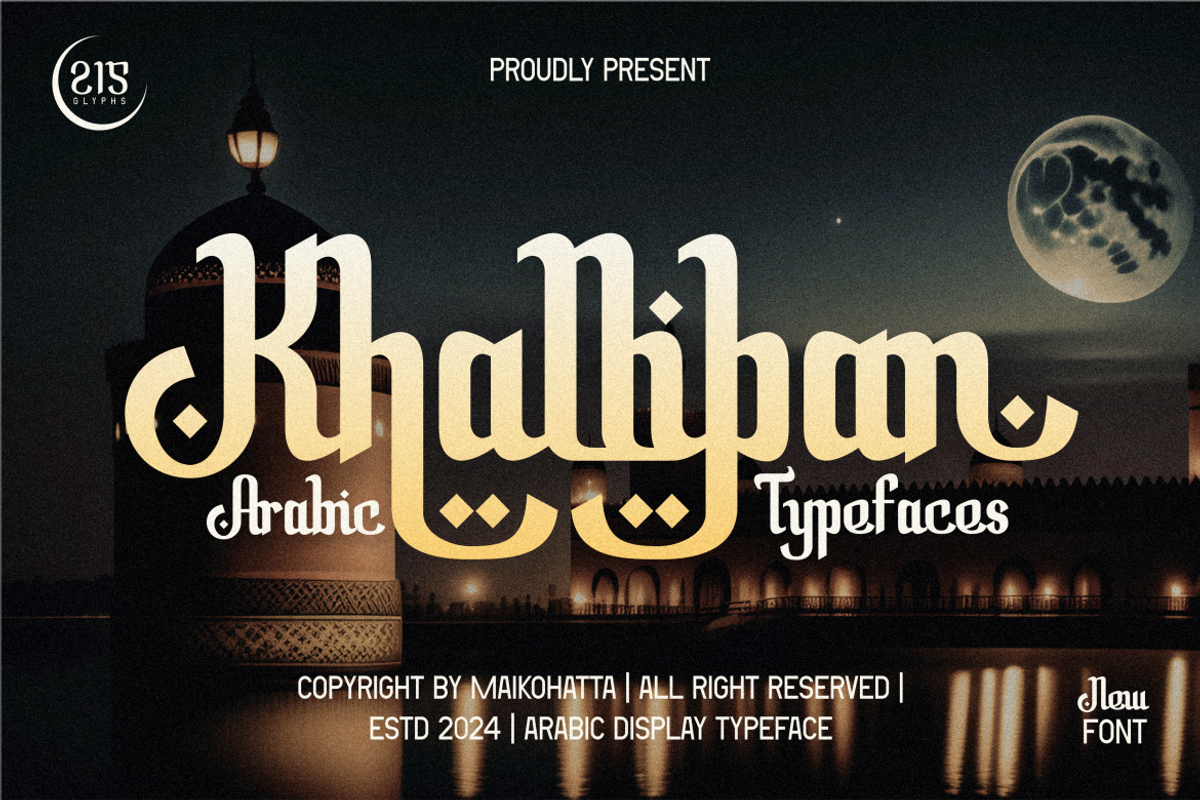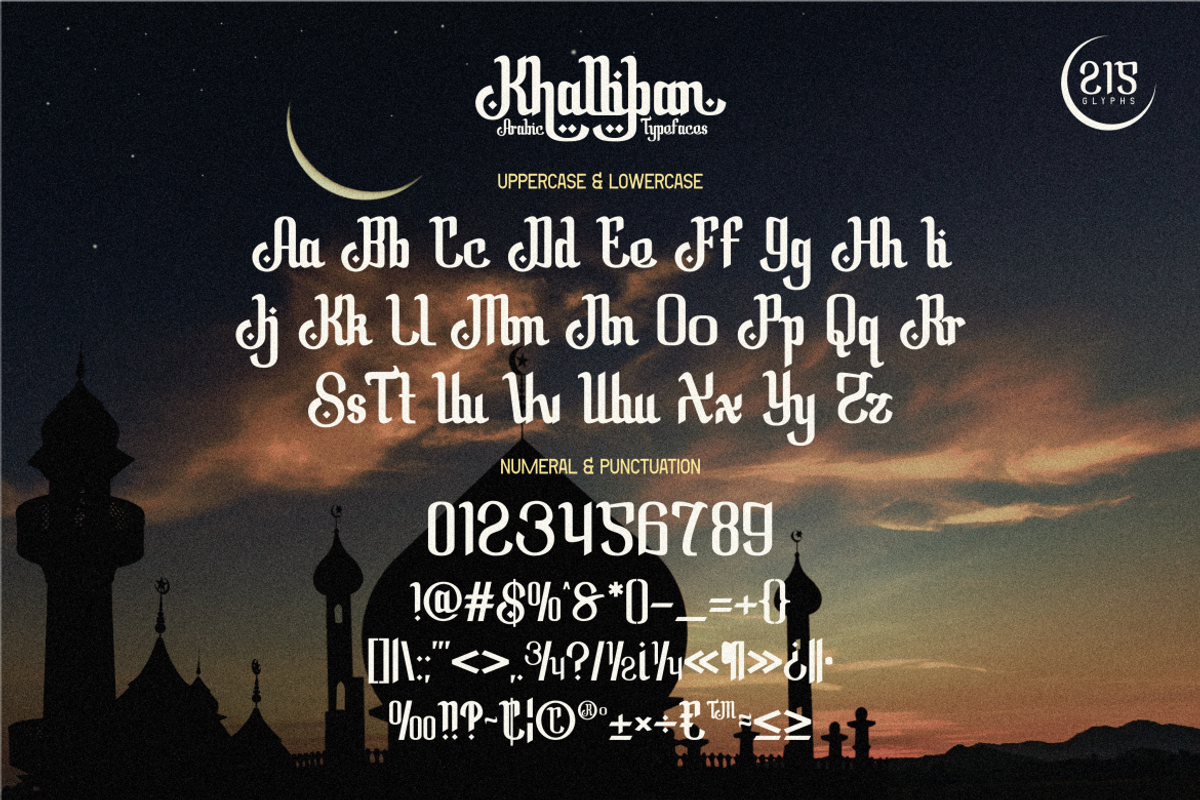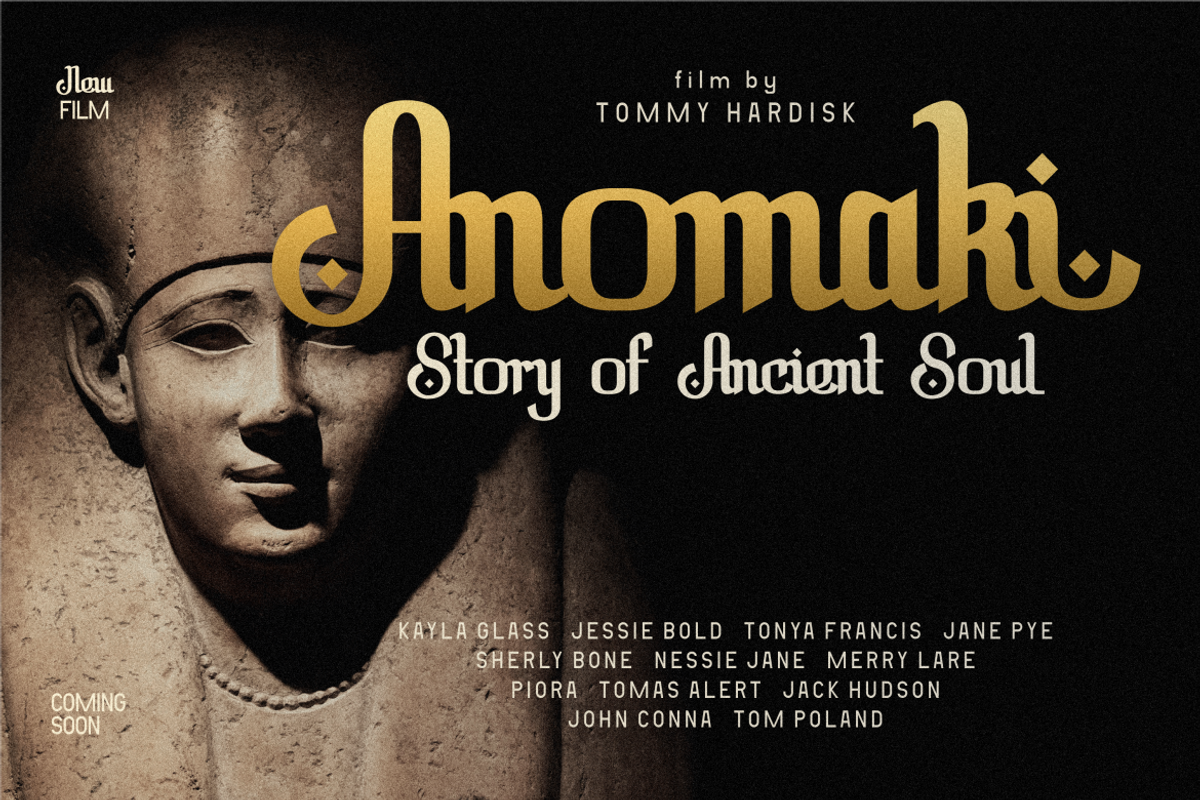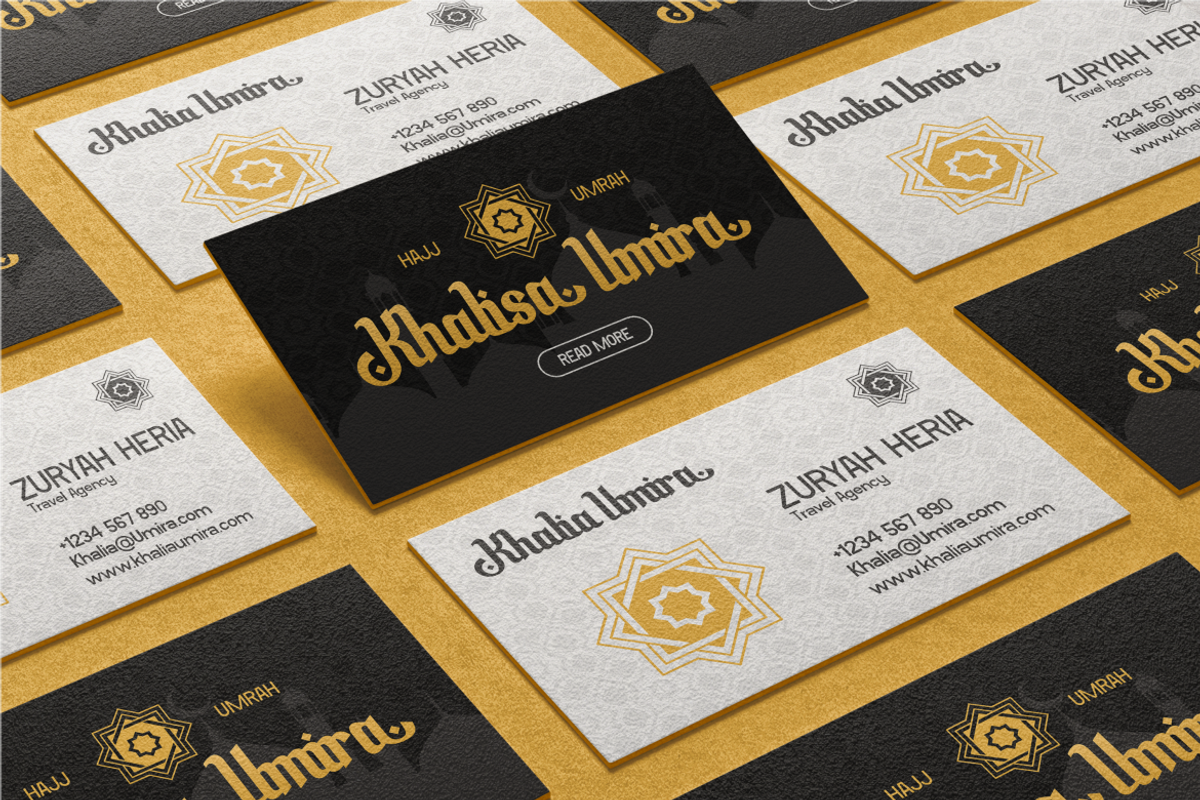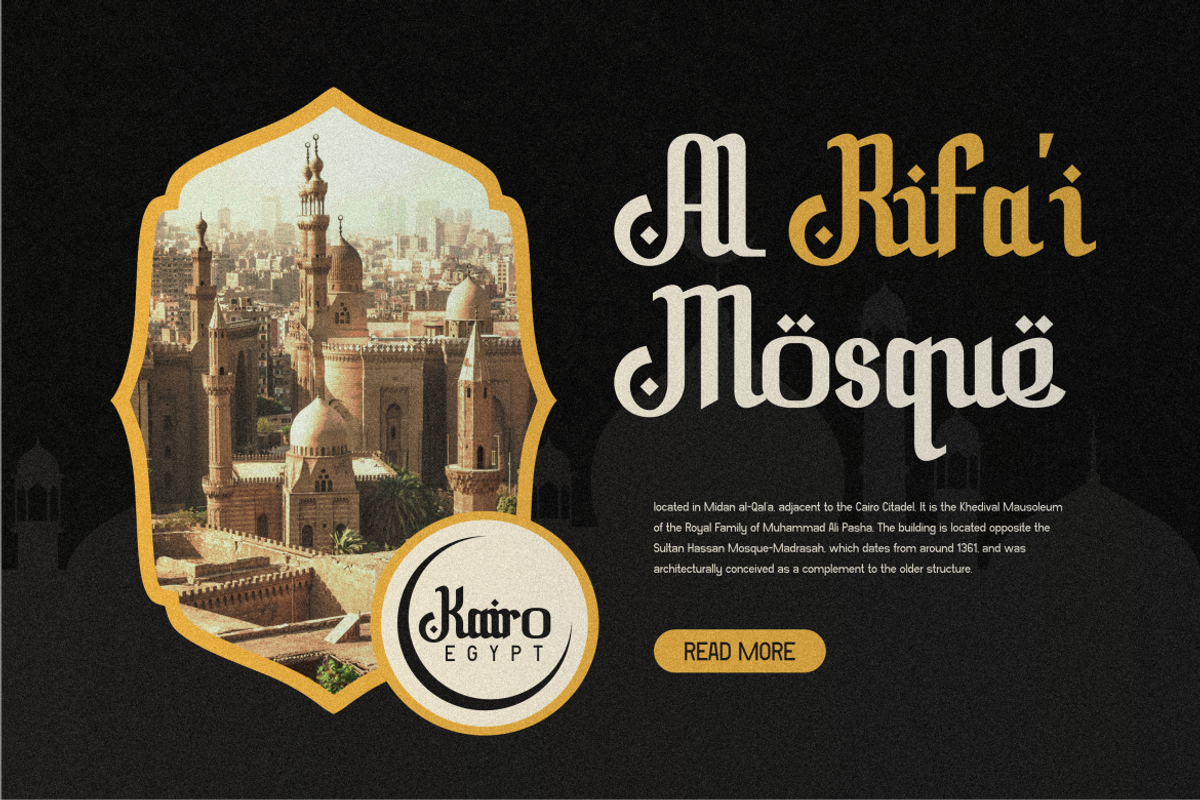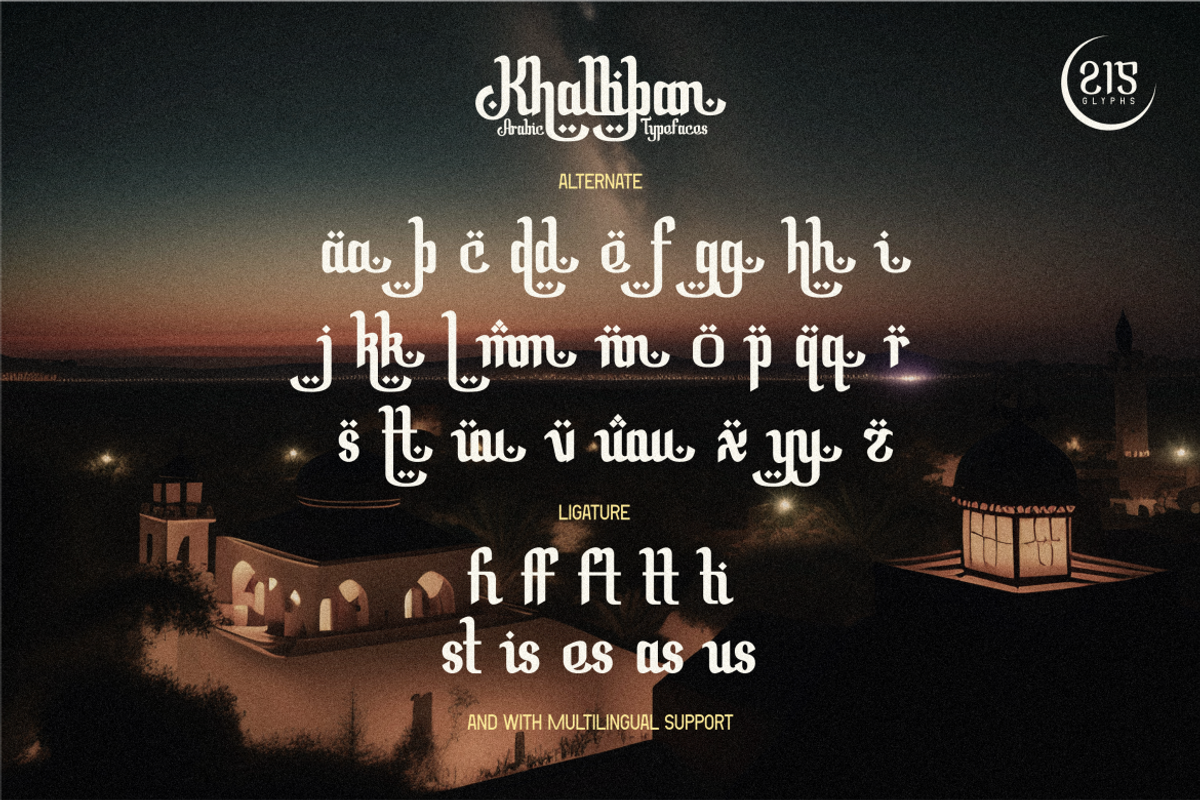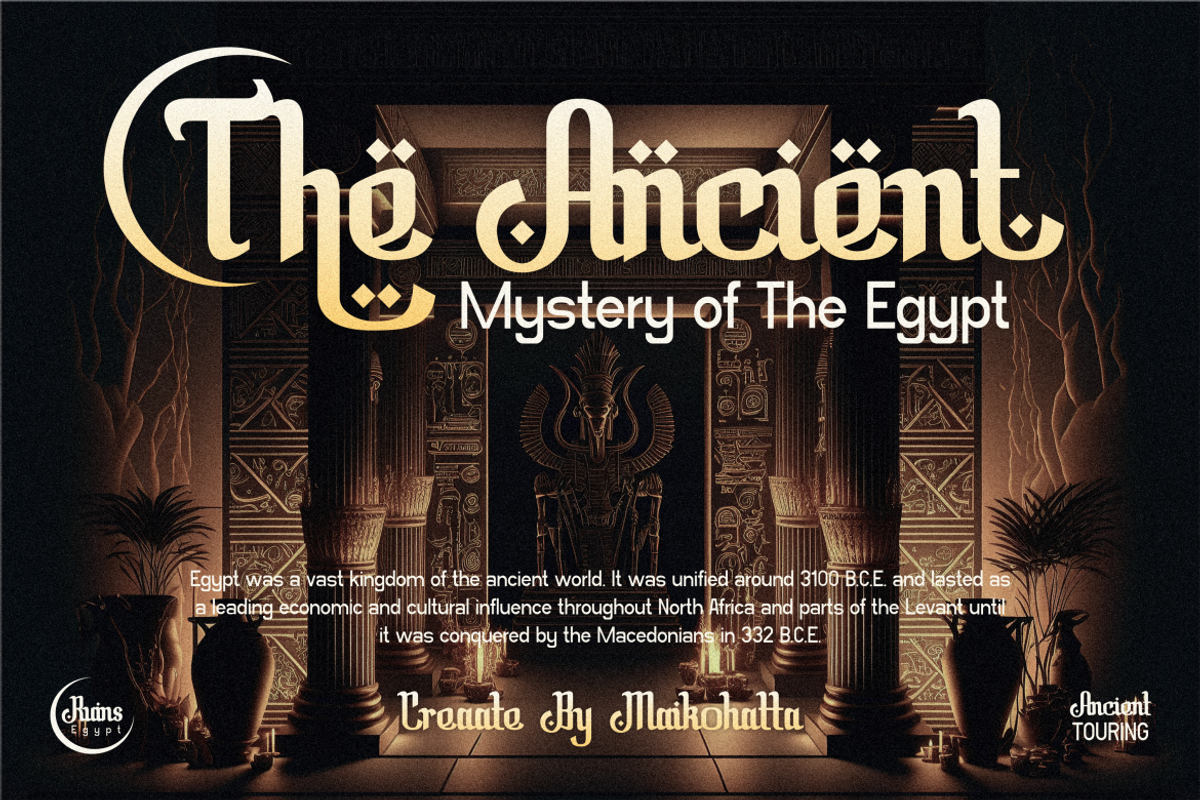
Khalliban - Arabic Typeface
Introducing our new product Khalliban - Arabic Typeface
Khalliban - Arabic Typeface is a bold and authentic display font. The font is suitable for any branding project like logo, Template Design, esport, and many more. outstanding in a wide range of contexts.